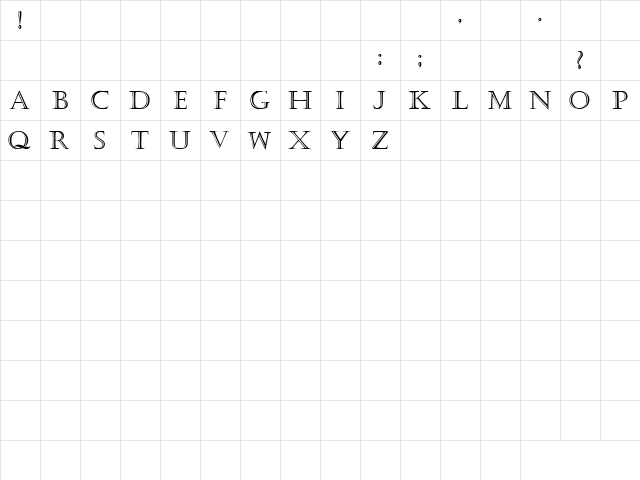
Stone Free 1 Regular
Design Context for Stone Free 1 Typeface
Stone Free 1 offers clean, dependable letterforms without strong stylistic allegiance, making it a practical choice for designers who need flexibility.